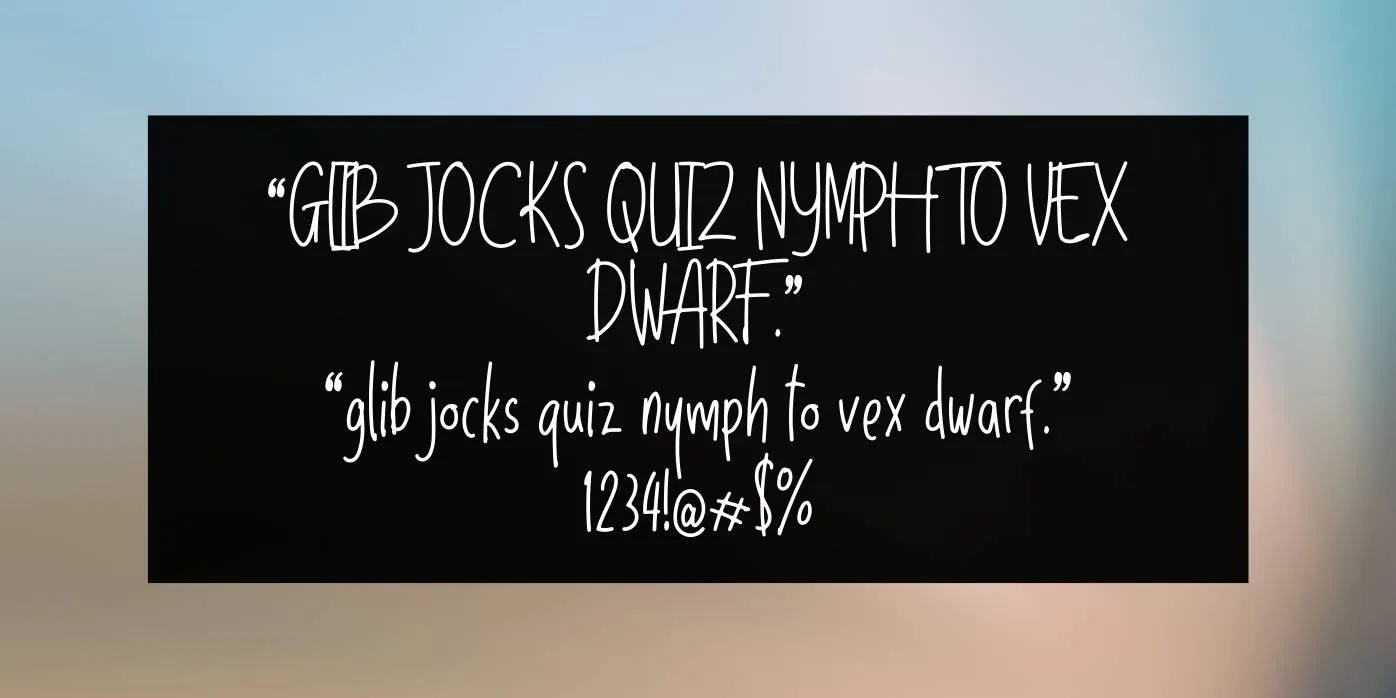
Sunday Holiday Font
Sunday Holiday Font is a beautiful and unique font that was created by semuthitam. The Font has a wide variety of characters that are perfect for creating a sophisticated look. The font is available in both regular and italic versions, as well as a bold version. The designer of this font took the time to make sure that each character was perfect for the Sunday Times logo.
This is evident in the way that the letters flow together. The Font is a great choice for any project that requires a touch of elegance and class. The Font is available in both regular and italic versions, as well as a bold version. This font is a great choice for any project that requires a touch of elegance and class.